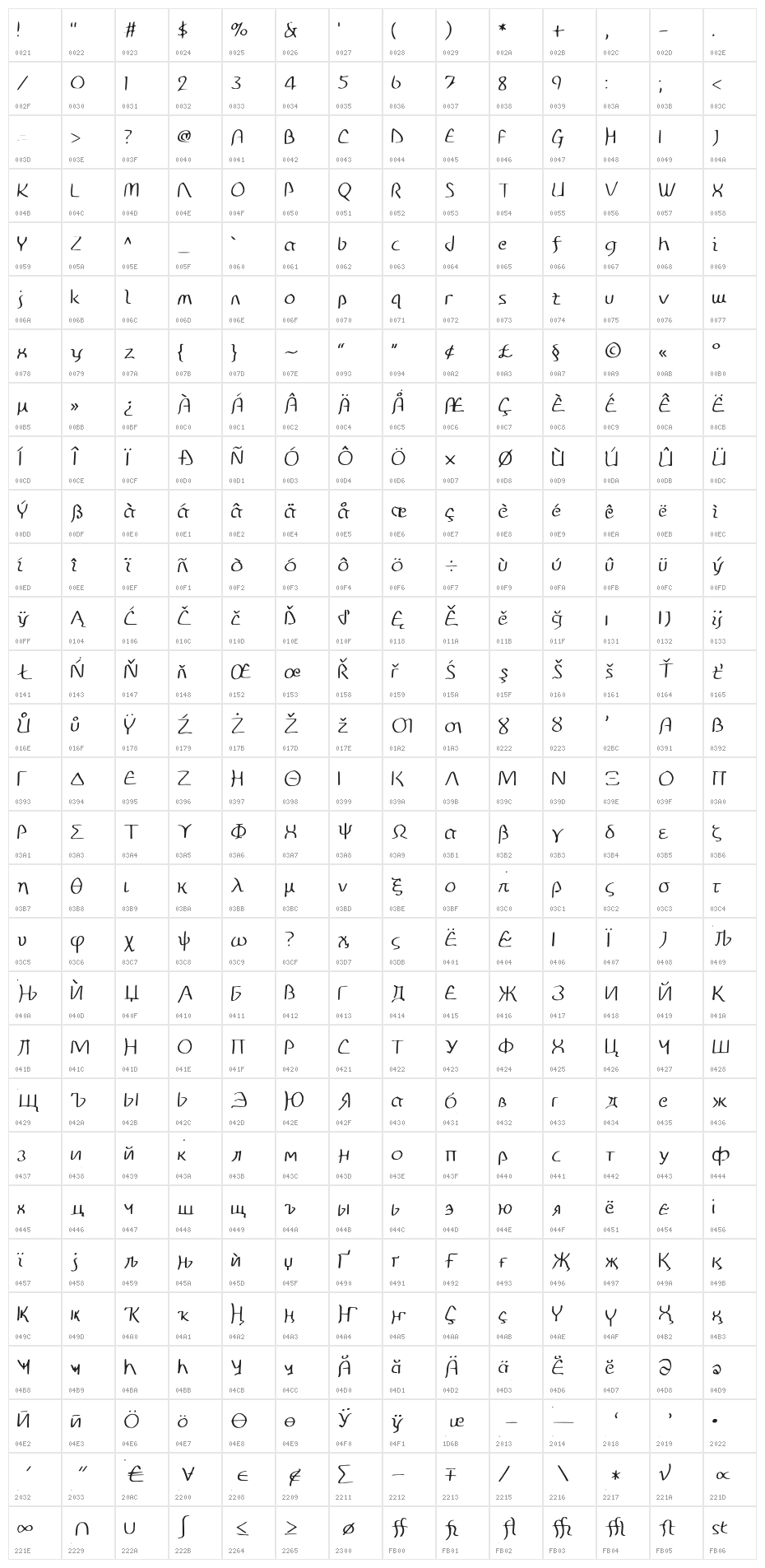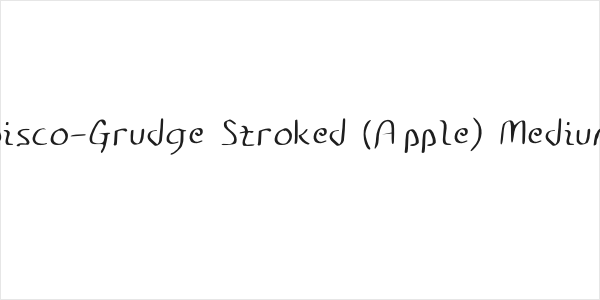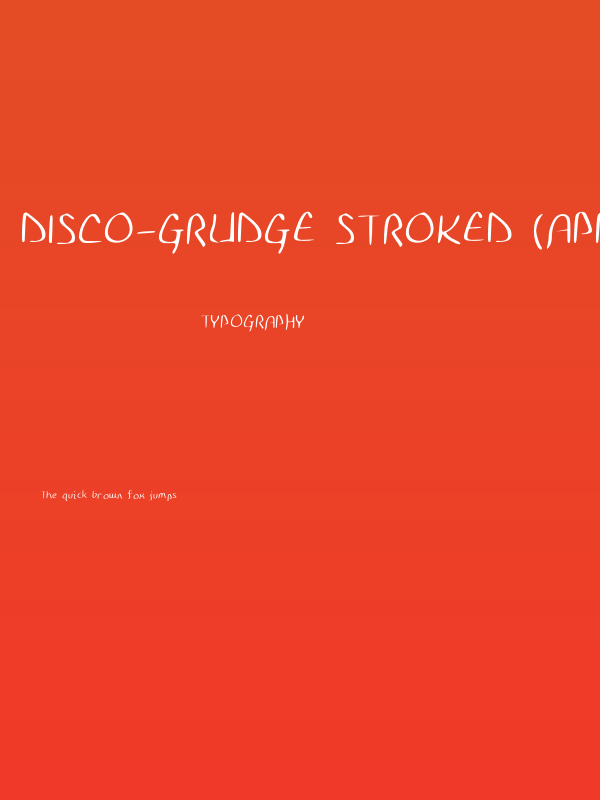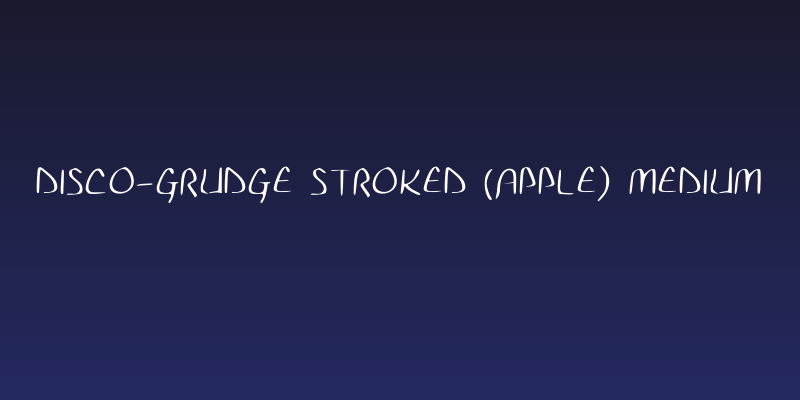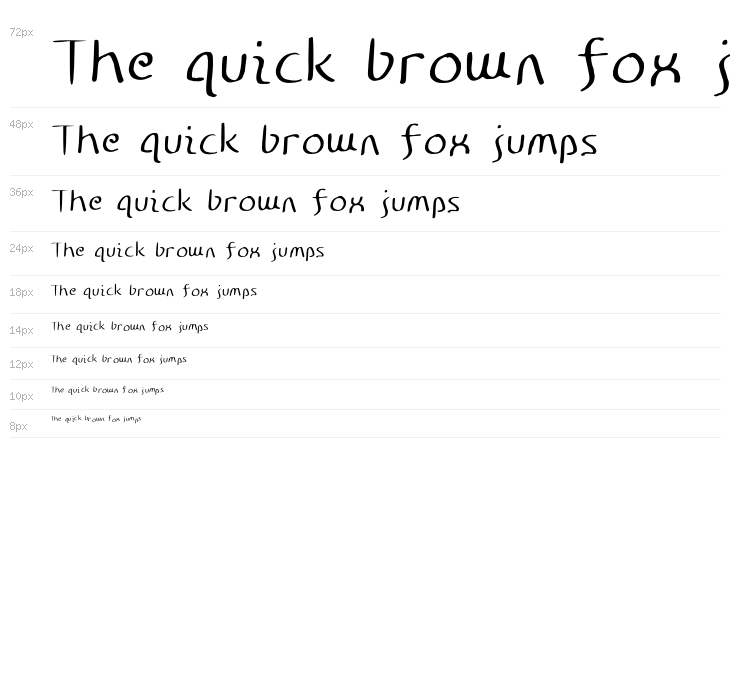
Disco-Grudge Stroked (Apple) Medium Font
Disco-Grudge Stroked (Apple) Medium Description
This font features a unique blend of modern and retro elements, characterized by its playful and slightly irregular strokes. The letters have a hand-drawn appearance, with varying thickness that adds a dynamic and energetic feel. The uppercase letters are bold and slightly condensed, while the lowercase letters maintain a consistent style with a touch of whimsy. The numerals are rounded and match the overall playful aesthetic. Special characters are creatively designed, maintaining the font's distinctive style. This font is perfect for projects that require a fun and informal touch.